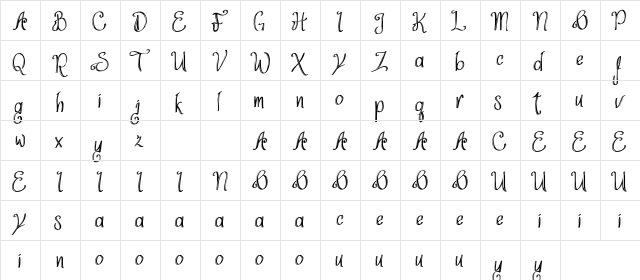
Think Dreams Demo Inline Regular
Design Context for Think Dreams Demo Inline Typeface
Think Dreams Demo Inline brings ornamental detail and strong personality to headlines and identities, where visual impact matters more than quiet functionality. The delicate stroke weight brings airiness and refinement to layouts.
Font Pairing: Pair with a clean neutral sans-serif for body copy to let Think Dreams Demo Inline's character lead without overwhelming the composition.
Pro Tip: Use Think Dreams Demo Inline exclusively at display sizes — it was designed to be seen, not read at length. Let a neutral companion handle body copy.